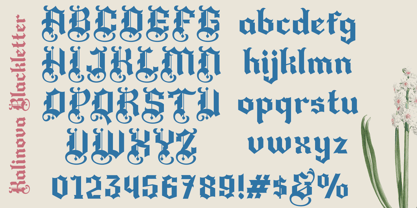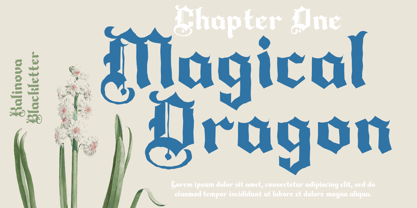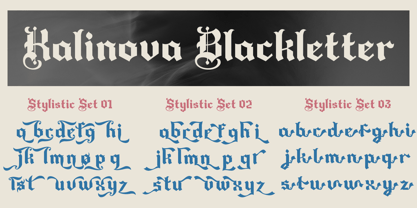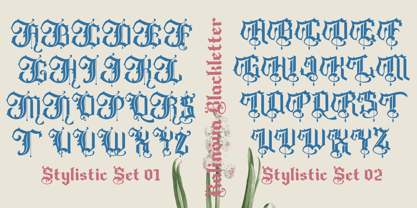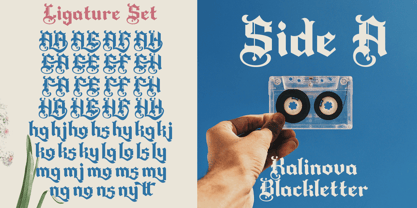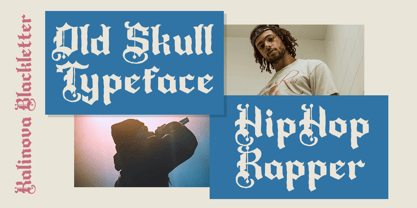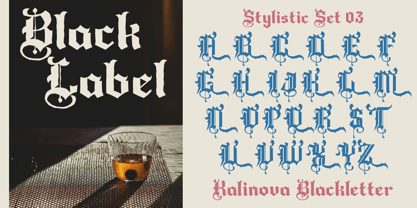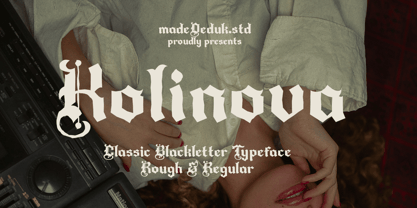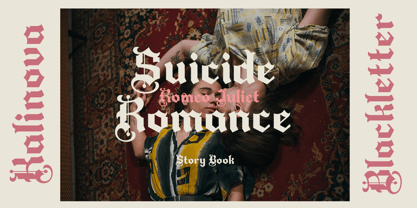
Kolinova Blackletter
von madeDeduk
Die Schriftfamilie Kolinova Blackletter wurde von madededuk entworfen und von madeDeduk veröffentlicht. Kolinova Blackletter enthält 2 Stile und Familienpaketoptionen.
Introducing Kolinova classic blackletter typefaces, characterized by their bold, dramatic strokes and intricate detailing. Every character in this font has been meticulously making your text stand out with a rugged, vintage charm. comes with a rich set of ligatures and alternate characters. This font is perfect for branding, logo design, cover design, books, magazines, apparel designs, headlines, etc.